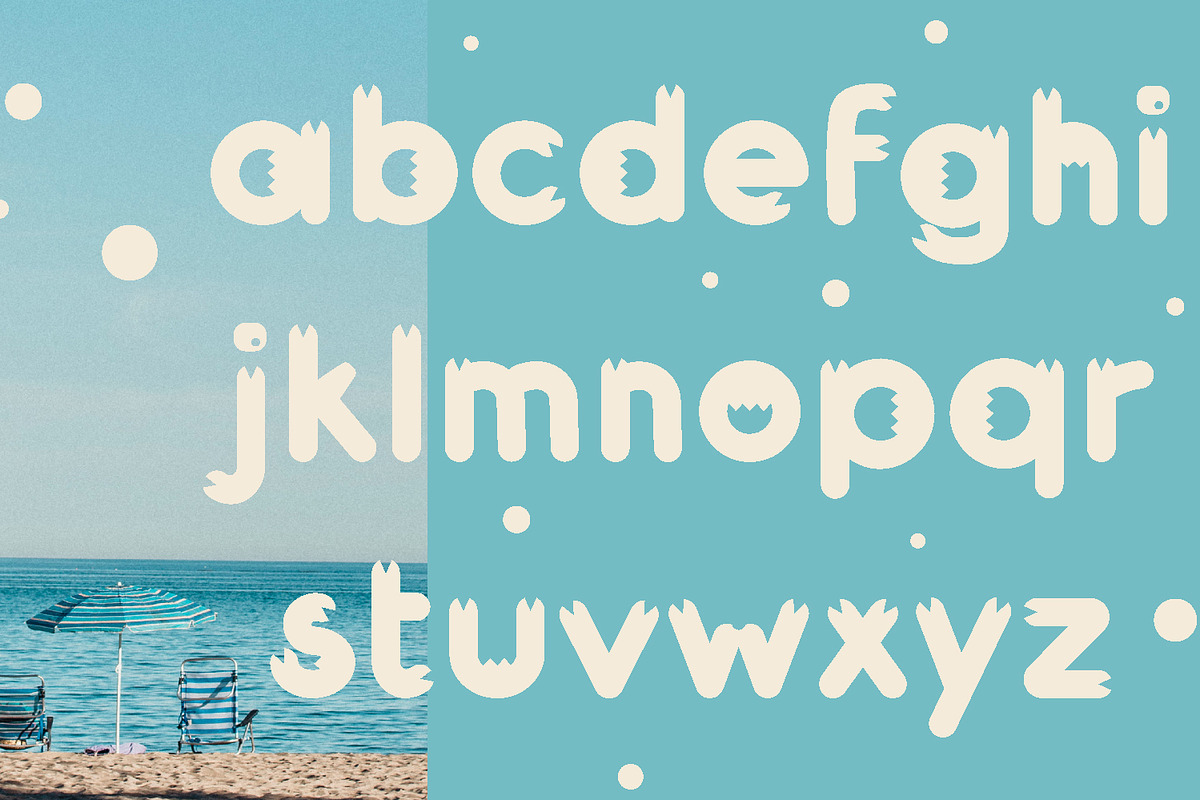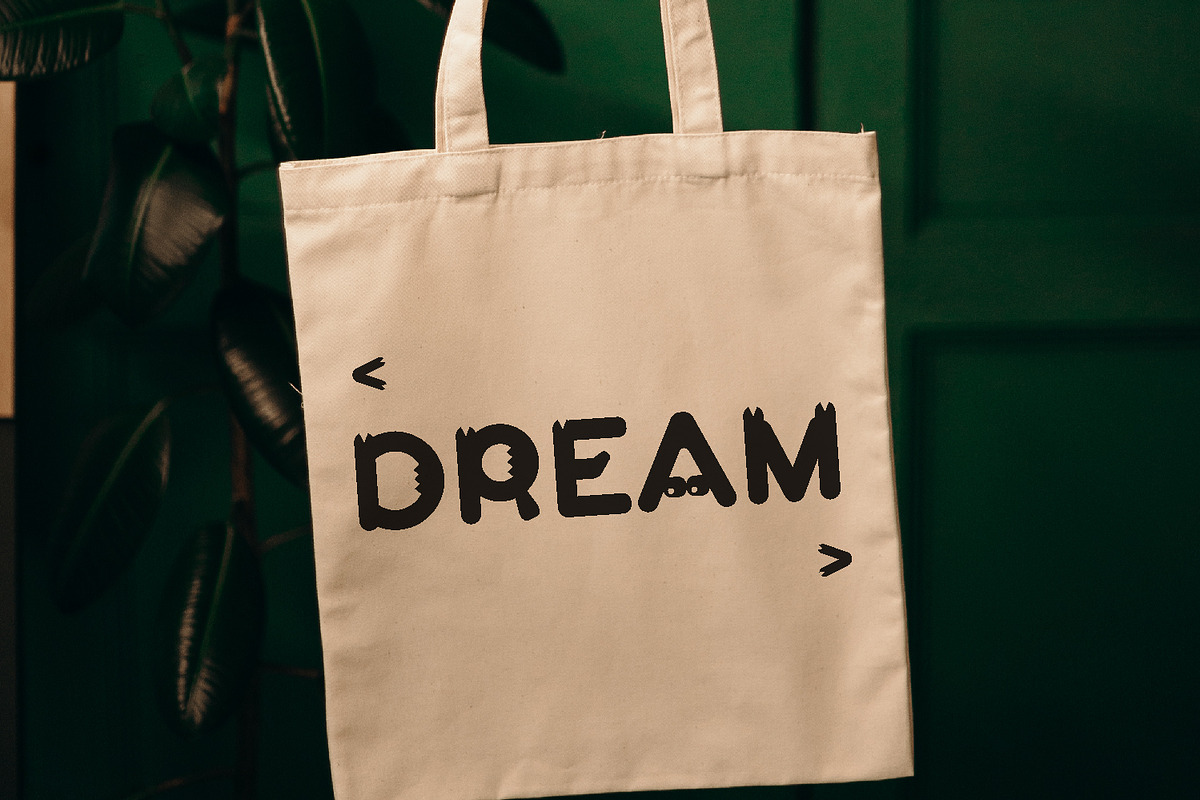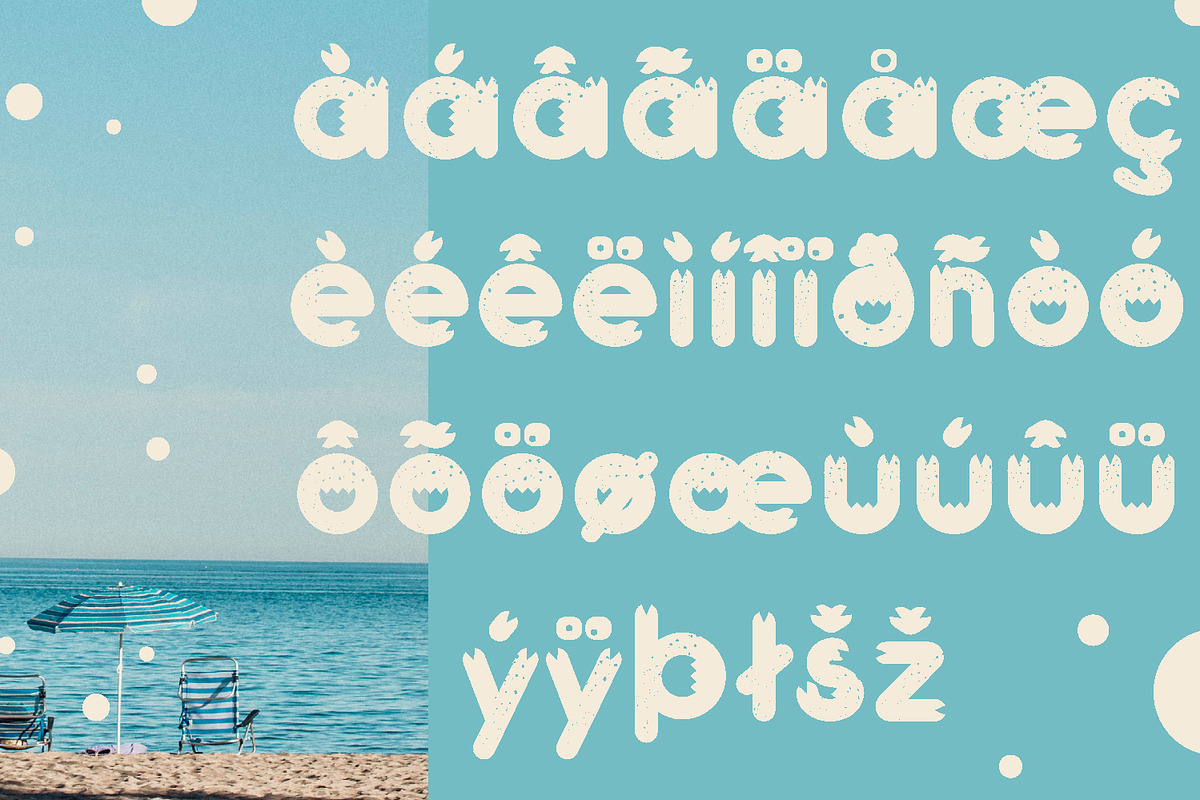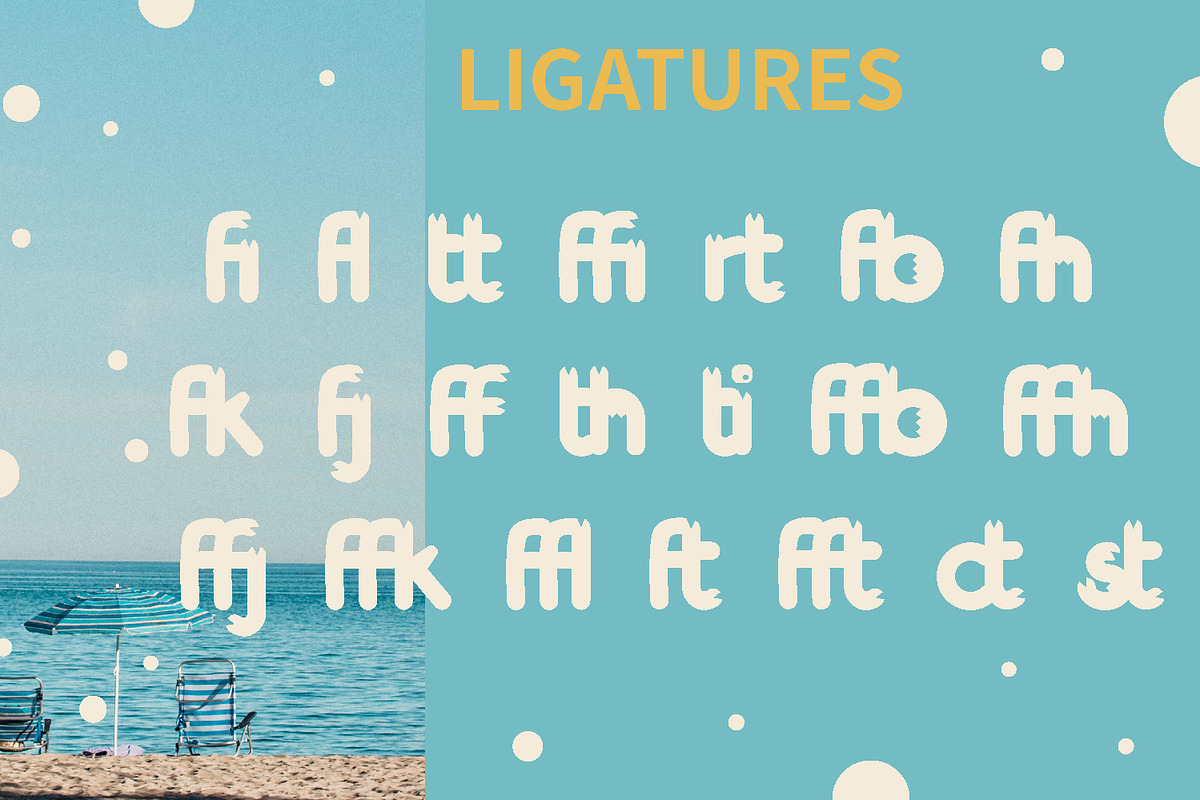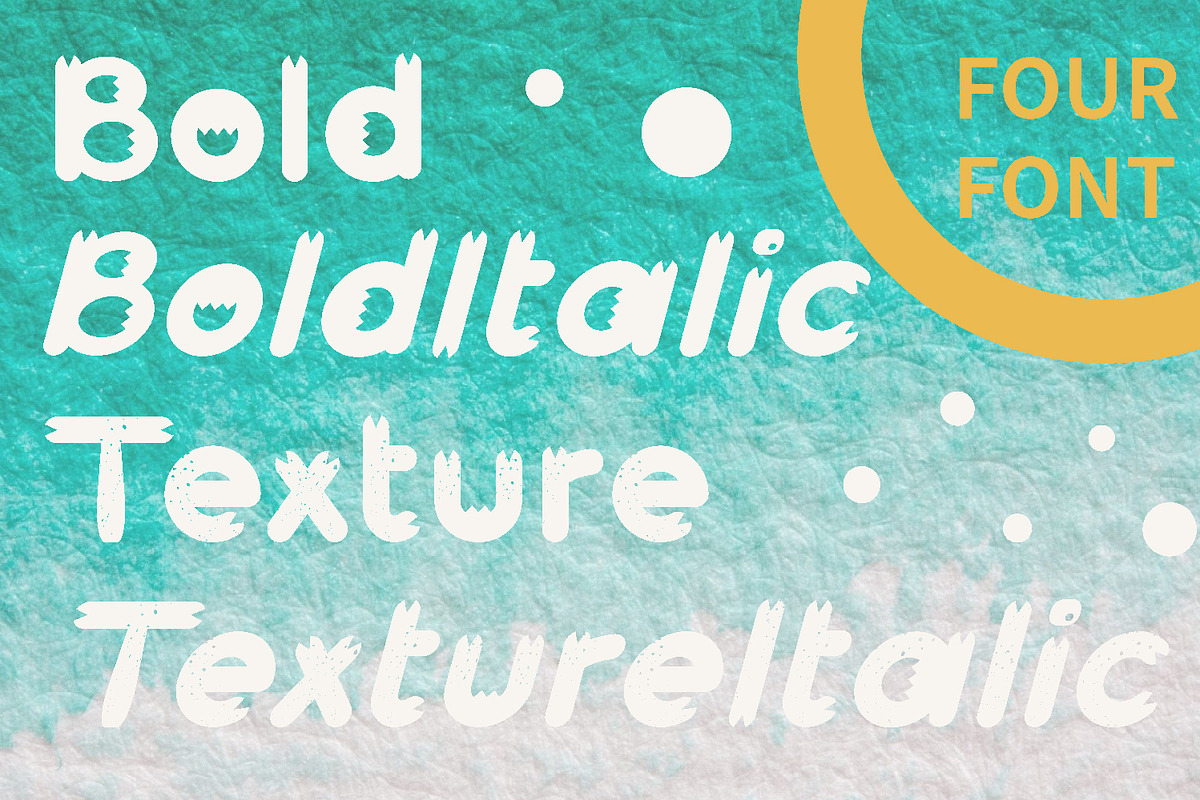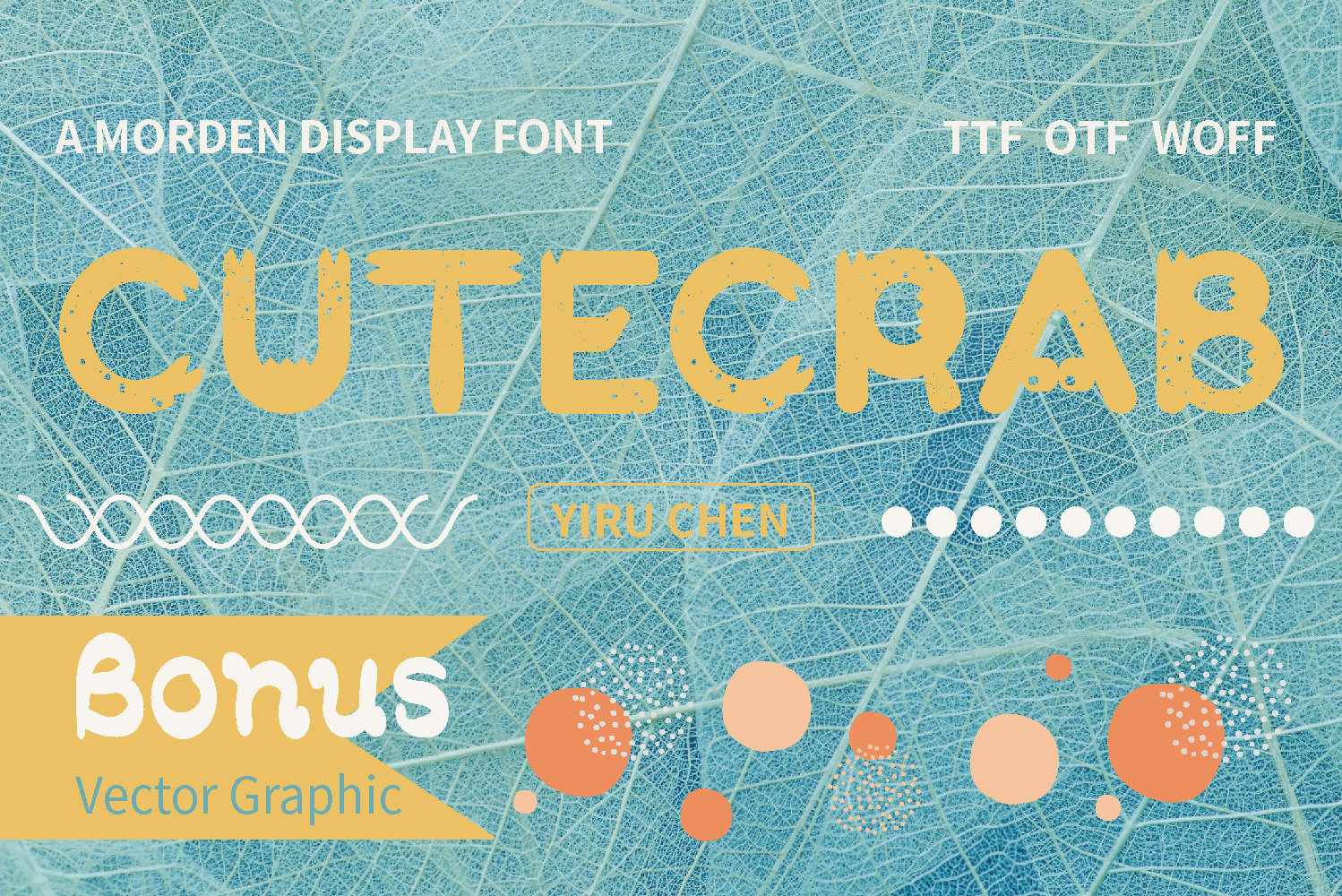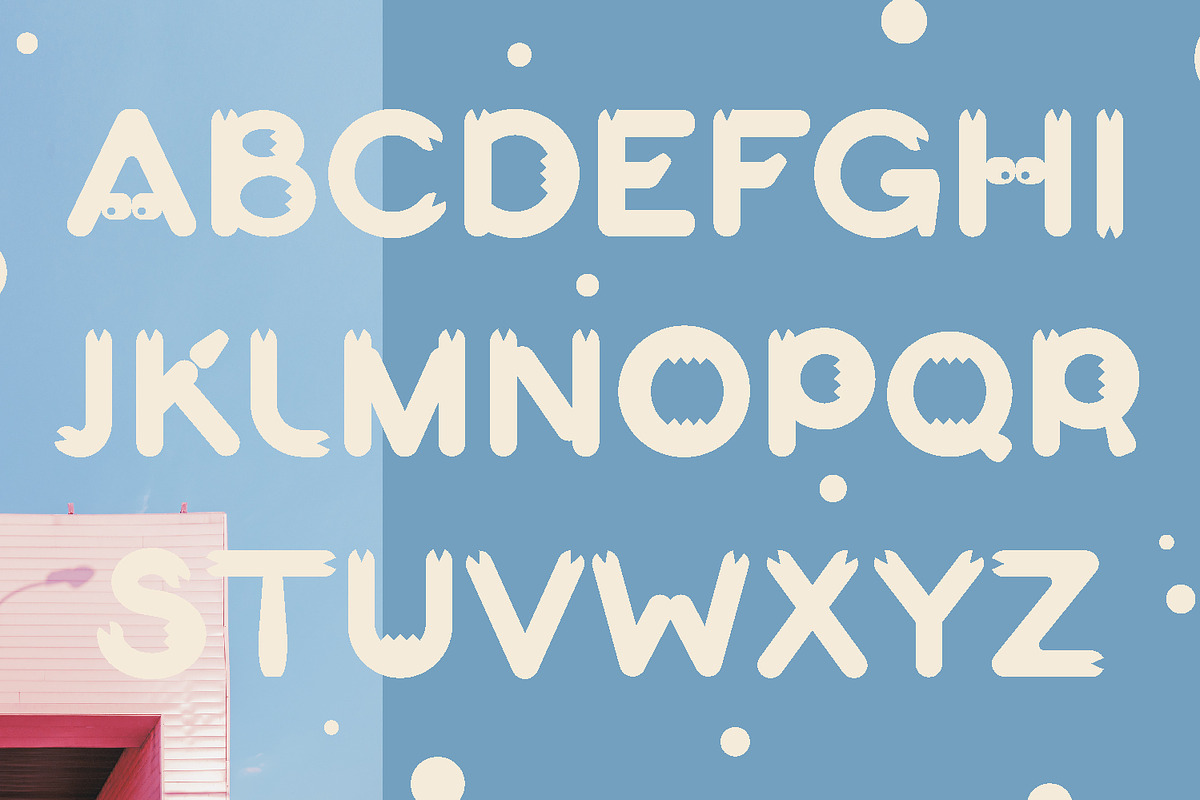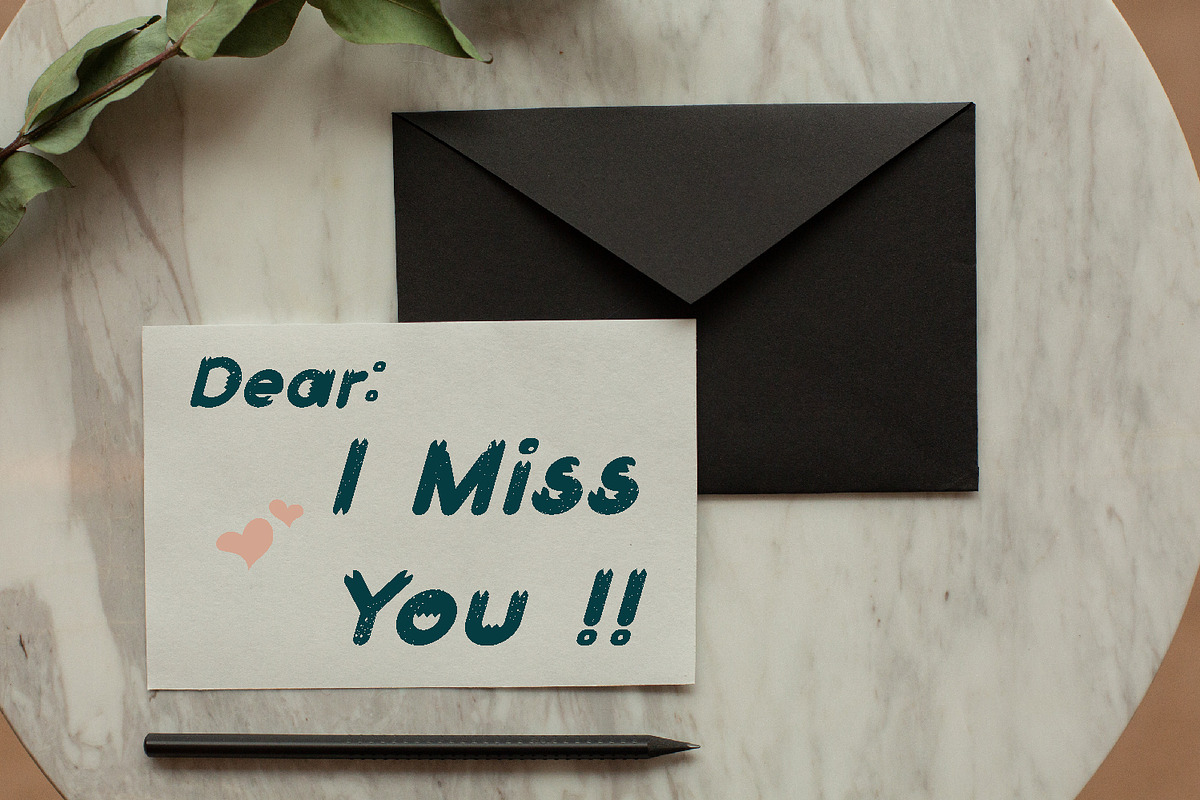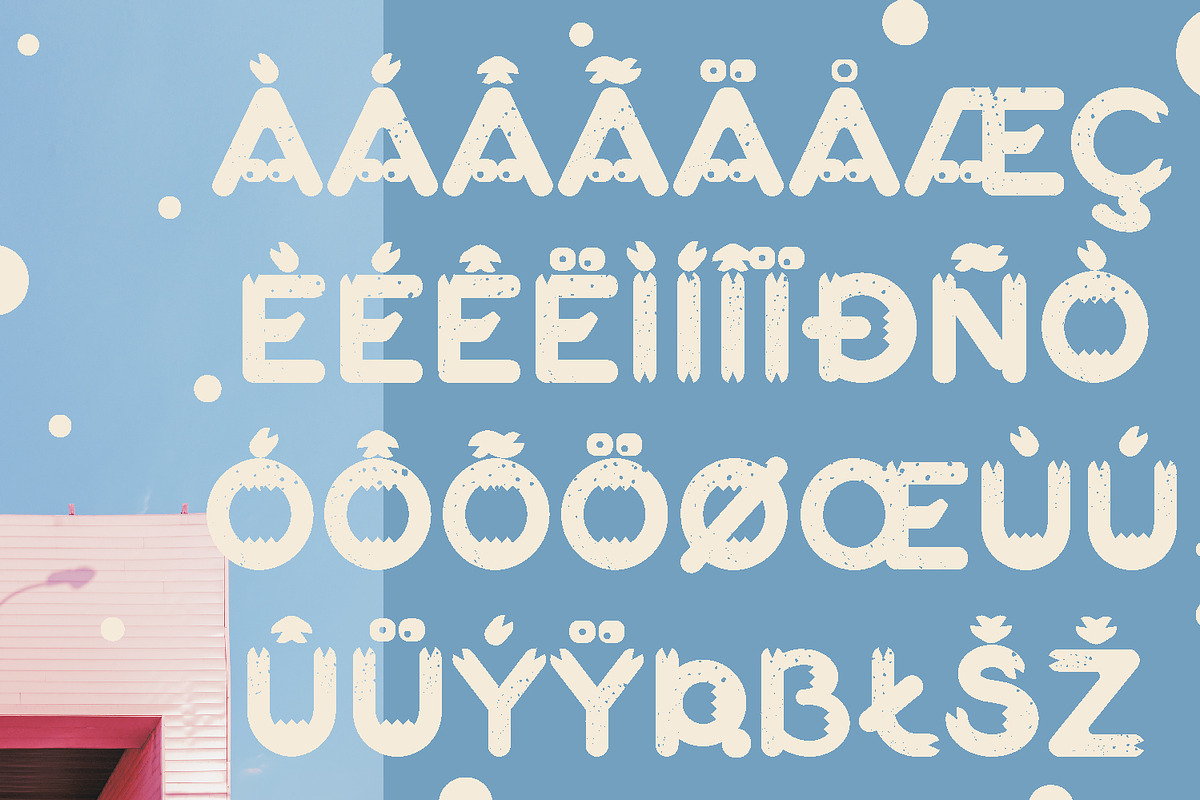
Cute Crab Display Font + Bonus
Cute Crab Morden Display Font has four fonts. Bold, BoldItalic, Texture and TextureItalic. A cute and interesting modern font with a crab shape. It is very suitable for use in holidays and commemorative moments. This font is suitable for titles, posters, packaging, clothes, banners, book design, business card design, website design, instagram, pintestest, etc. Provide wonderful and interesting handmade designs.